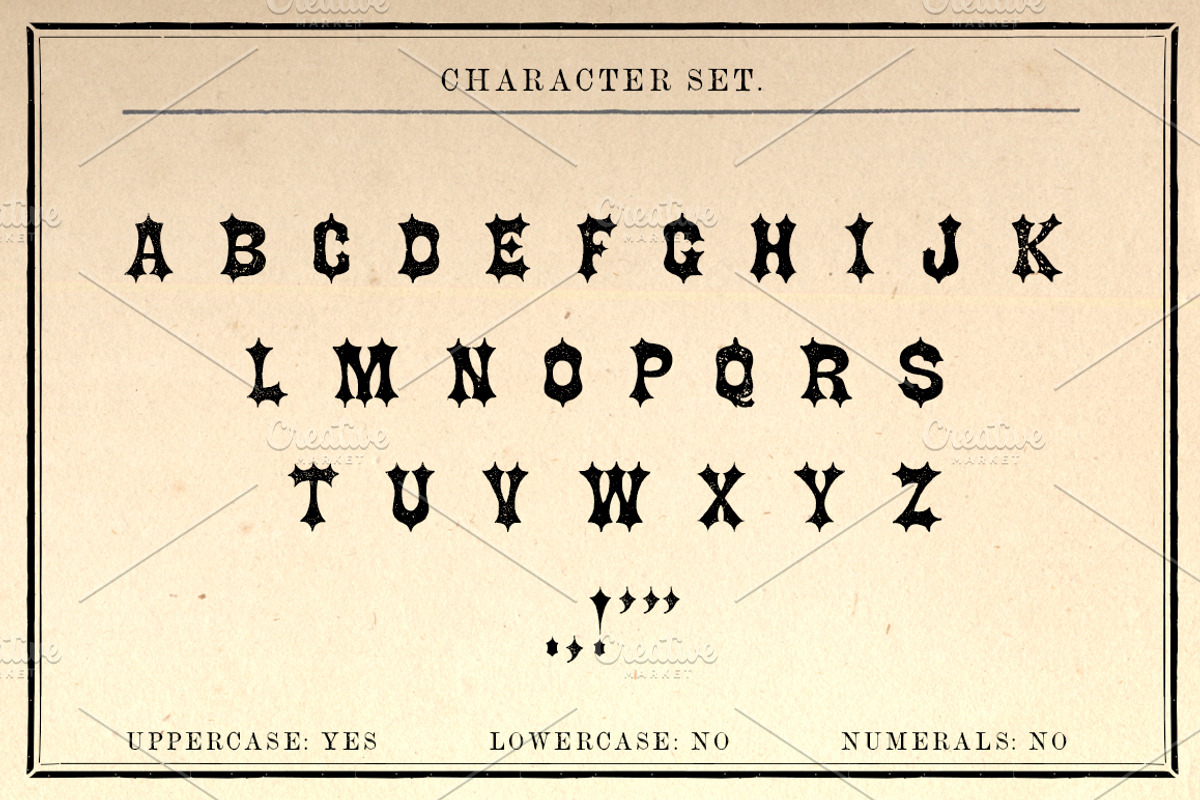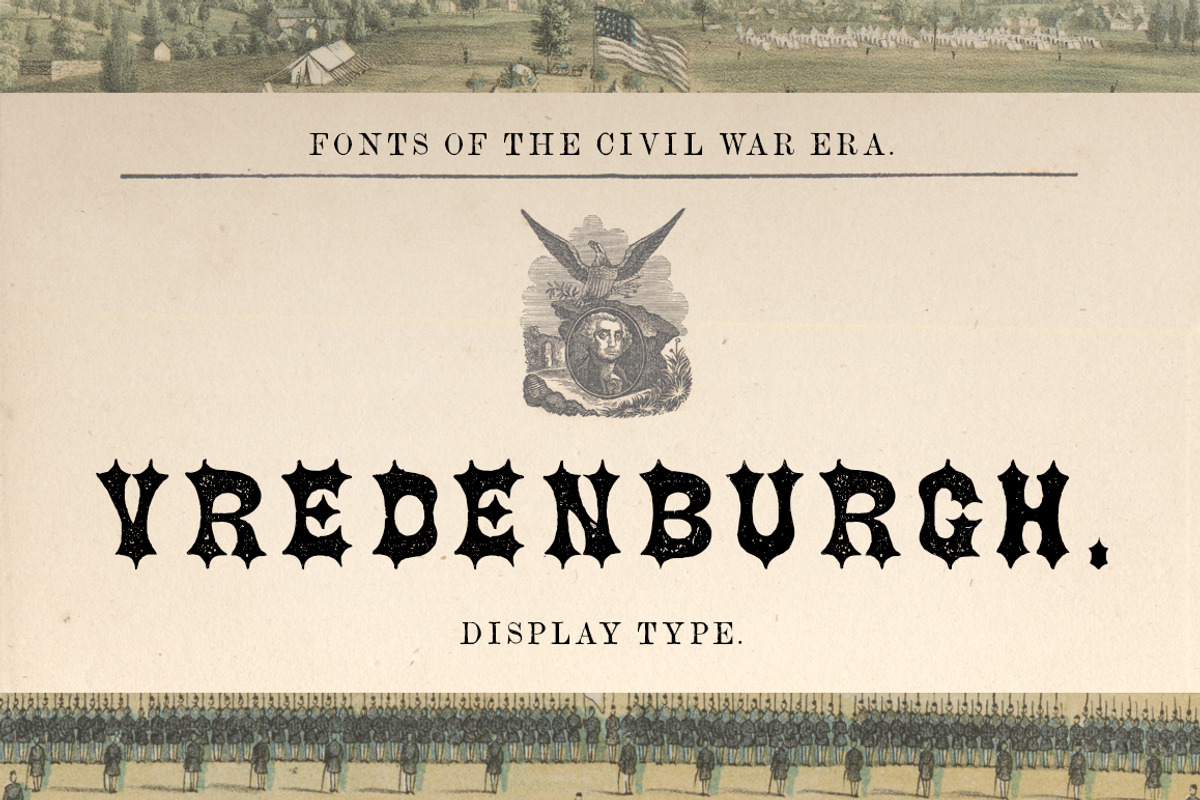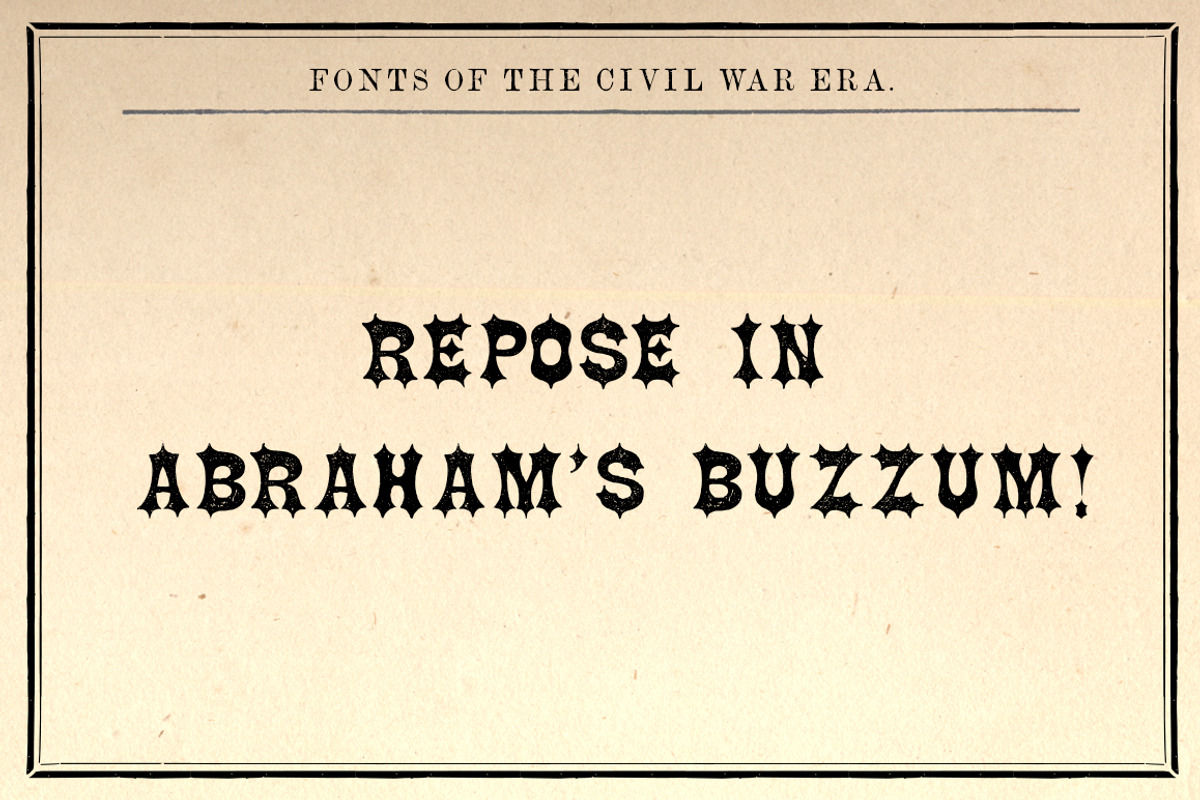
Vredenburgh Display Font
Vredenburgh Regular OTF is an ornamented serifed display font that comes from Volume 1 of The New Blazing Star Press's "Printer's Type Case."
- Unique Letterforms
The lowercase features a slight variant of the uppercase alphabet.
This font DOES NOT include LOWERCASE or NUMBERS, as they did not exist in the original font. Only basic punctuation is included.
It was very common for 19th century typesetters to use other fonts to substitute punctuation and numerals missing from a particular typeface.
Since they were scanned directly from the pages of original 150 year-old documents, the letters show imperfections common to letterpress printing.
WHAT'S BEHIND THE NAME "VREDENBURGH"?
Peter Vredenburgh, Sr., was an Associate Justice of the New Jersey Supreme Court, and was the namesake for Camp Vredenburgh - one of nearly a dozen camps created across New Jersey during the Civil War to train new volunteer regiments for the Union army. Its location is the only one to survive modern development, and is now protected within the grounds of Monmouth Battlefield State Park, in Manalapan, N.J.
ABOUT THE NEW BLAZING STAR PRESS.
All of our Civil War-era historical fonts were copied entirely from ORIGINAL LETTERS scanned from type specimen, business directories, song sheets, broadsides, and advertisements, printed between 1848 and 1867 gathered from museums, private collections, and the Library of Congress. No cheap work done, but instead with a neatness not to be excelled in the Typographical Art.